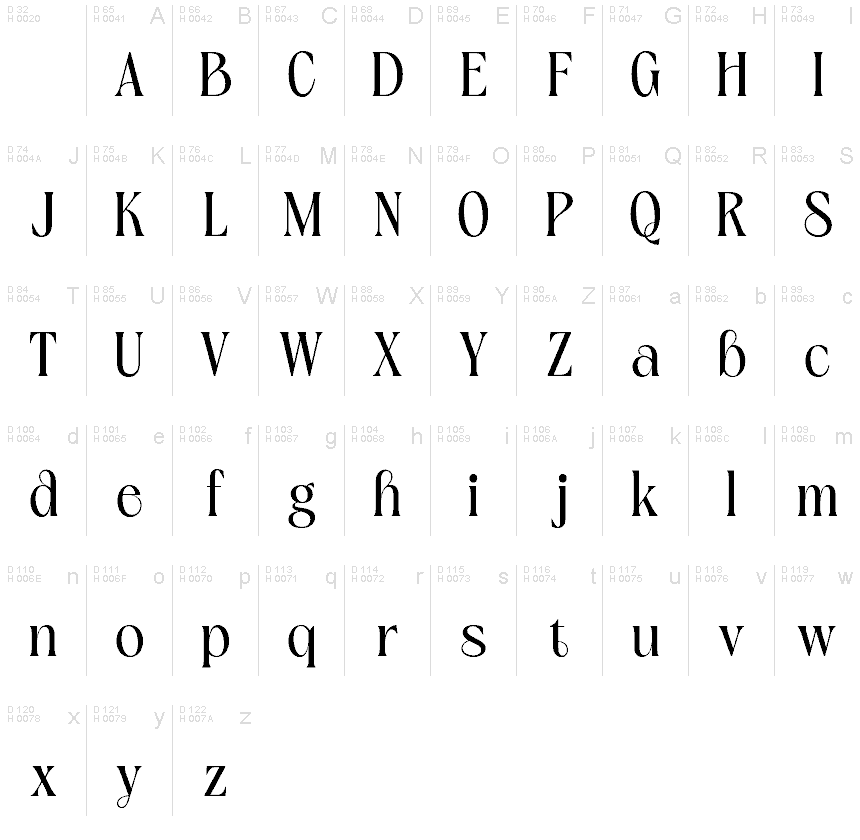
CS Abuela Regular Demo
CS Abuela font by Craft Supply Co. is a vintage condensed font with a majestic sense of confidence and uniqueness. It enriches your projects with elegant appeal and sophisticated decorative touches. Expressive curves and modern serif influences are also an undeniable part of the font’s character along with its soft features, even when sharp edges are present.
Personal brandings such as business cards or signatures, digital entities like UI/UX designs of websites, blog posts, mobile apps or gaming interface, printed stationery items or advertising accessories (such as flyers), apparel decorations… these are only some of the places you can use this free elegant vintage serif typeface.